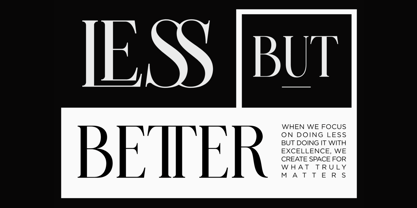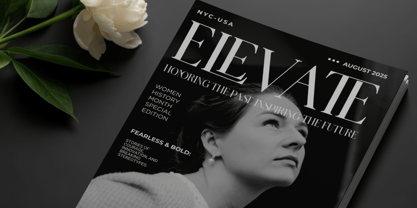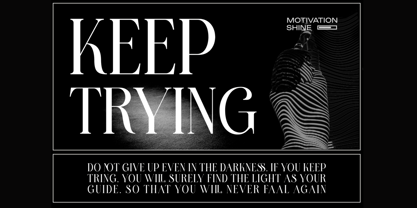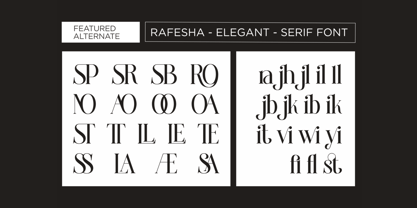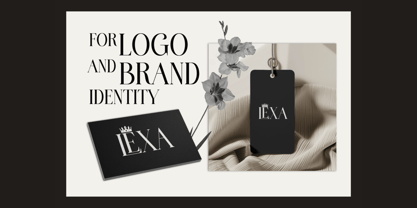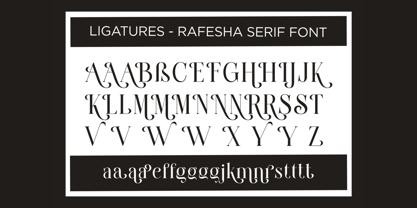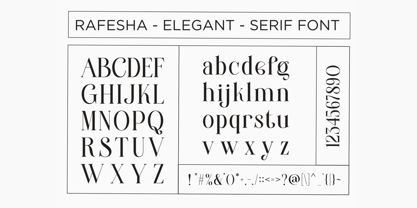
Rxhesa
by Hasnat Studio
The Rxhesa Font Family was designed by Hasnat Khan and published by Hasnat Studio. Rxhesa contains 1 styles. More about this family
Rxhesa is a refined and elegant modern serif font that blends classic sophistication with contemporary design. Perfectly suited for both digital and print use, Rxhesa offers a timeless aesthetic that enhances branding, editorial layouts, product packaging, and high-end marketing materials. With clean lines, balanced proportions, and thoughtfully designed ligatures, this font delivers a polished and professional appearance across every creative platform.
Whether you're building a fashion brand, launching a boutique café, or designing a luxury website, Rxhesa brings modern charm and lasting elegance to your typography.
Key Features:
• Modern Serif Design: Combines classic elegance with a clean, minimalist structure.
• Functional Ligatures: Smooth and stylish letter connections that enhance visual flow and uniqueness.
• Proportional Letterforms: Expertly spaced characters ensure consistent legibility and design harmony.
• Multilingual Support: Includes accented characters to support multiple languages.
• Optimized for Print & Web: Crafted for perfect readability across digital and traditional media.
Perfect For:
• Branding & Logos: Ideal for creating timeless, stylish brand identities and upscale logos.
• Web Design & Digital Use: Clean letterforms and proportional spacing make it perfect for UI design, blogs, and online shops.
• Editorial & Magazines: Adds elegance and balance to magazine spreads, book covers, and long-form content.
• Luxury Packaging: Perfect for boutique labels, high-end product packaging, and exclusive branding.
• Social Media Graphics: Elevates your Instagram posts, Pinterest quotes, and visual content with sophistication.
Bring your creative vision to life with Rxhesa—a modern serif typeface that offers timeless beauty, modern appeal, and unmatched versatility.
Designers: Hasnat Khan
Foundry: Hasnat Studio